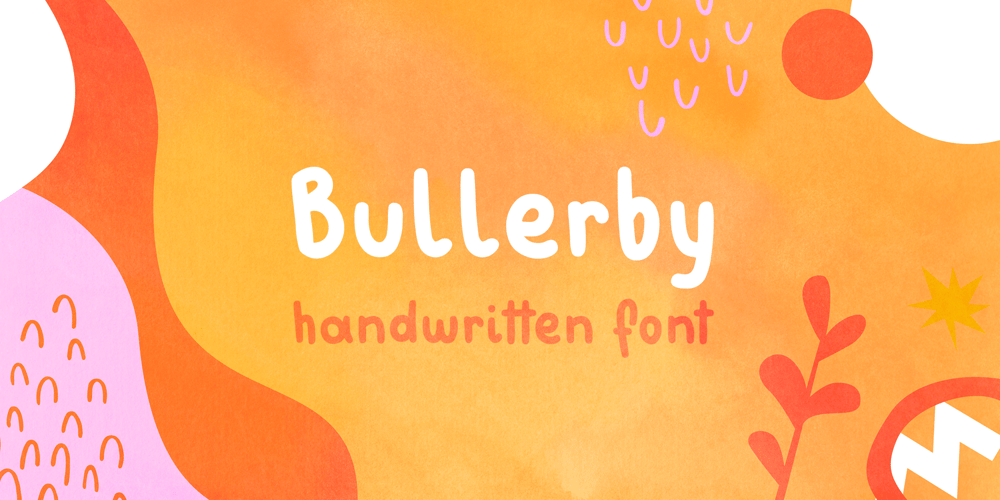
Bullerby
Bullerby Font Family was designed by Maria Brachmańska and published by Maria Brachmańska. Bullerby contains 1 styles and family package options. Bullerby is a font inspired by children’s handwriting. The letters are characterized by charming curves in the lowercase and distinct condensed traits in the upper case. It is very versatile in use: it is ideal for logos, packaging, posters, advertisements, and much more. The font supports 68 languages.